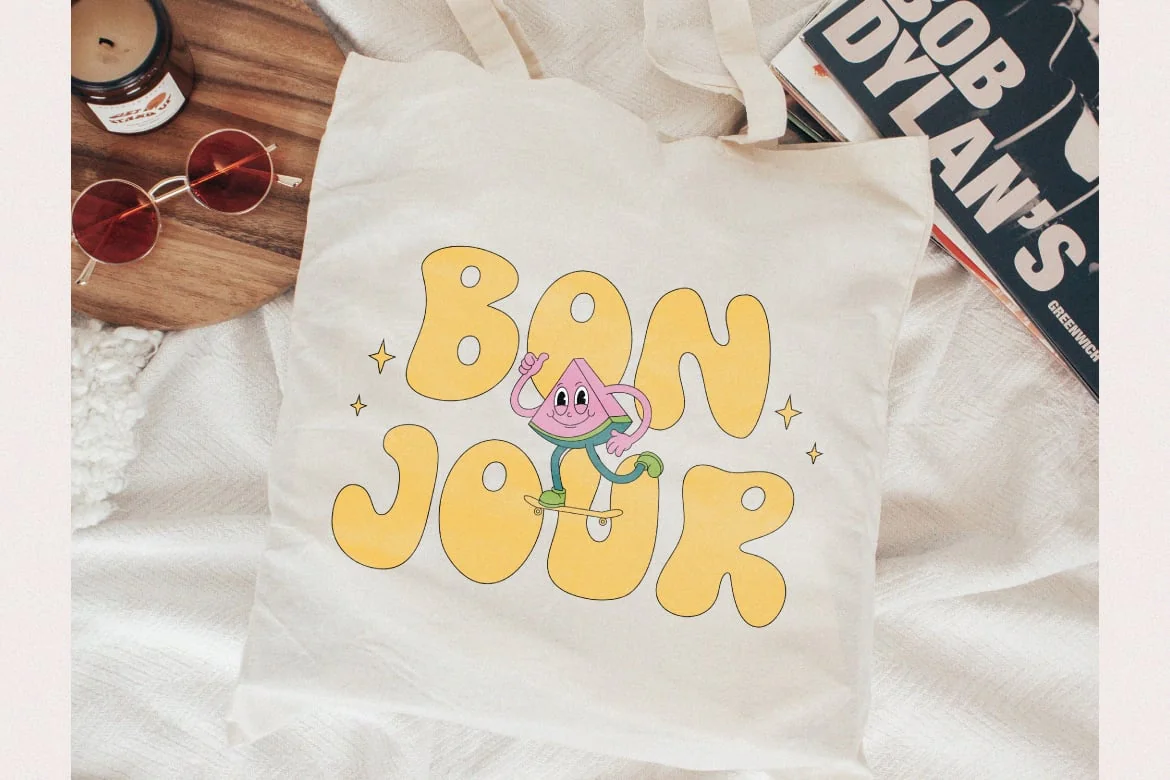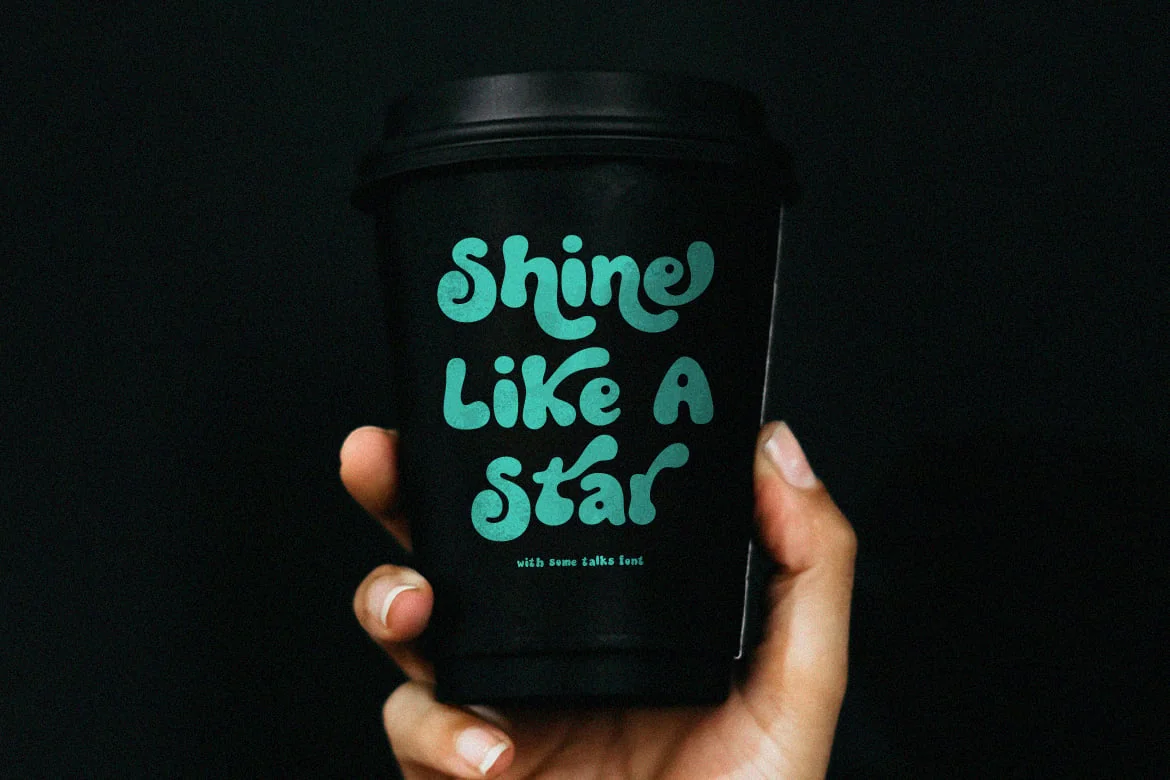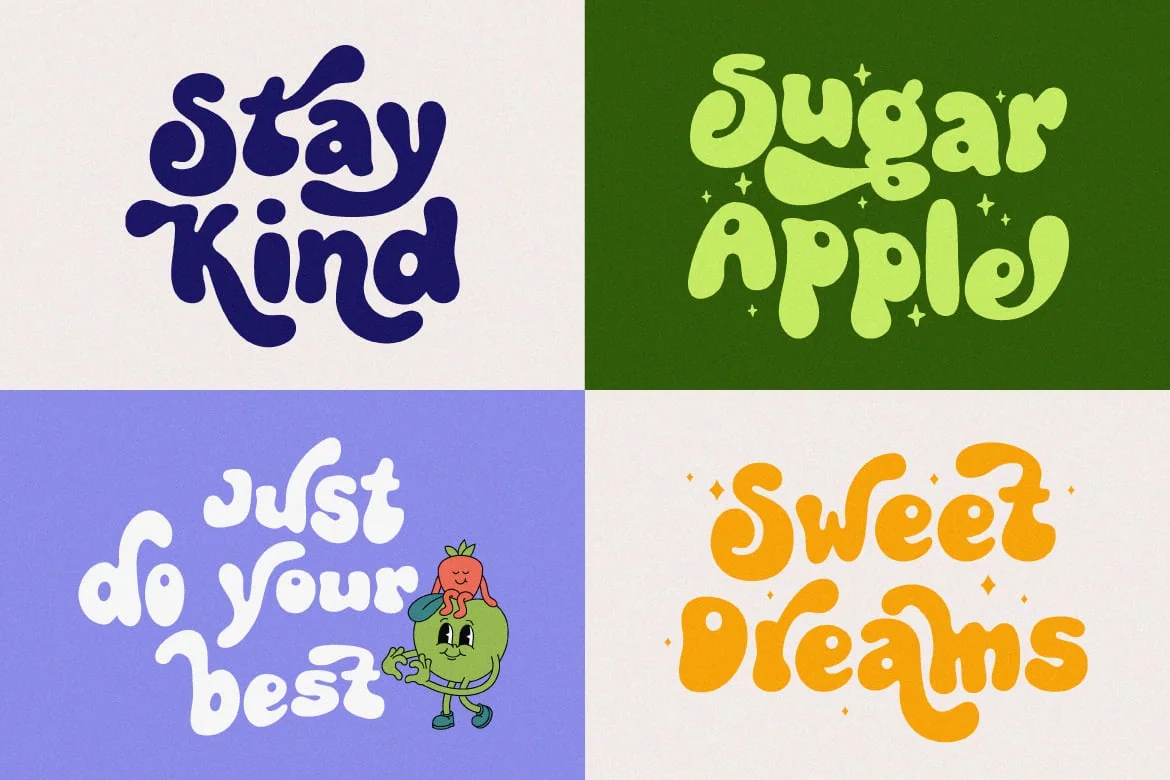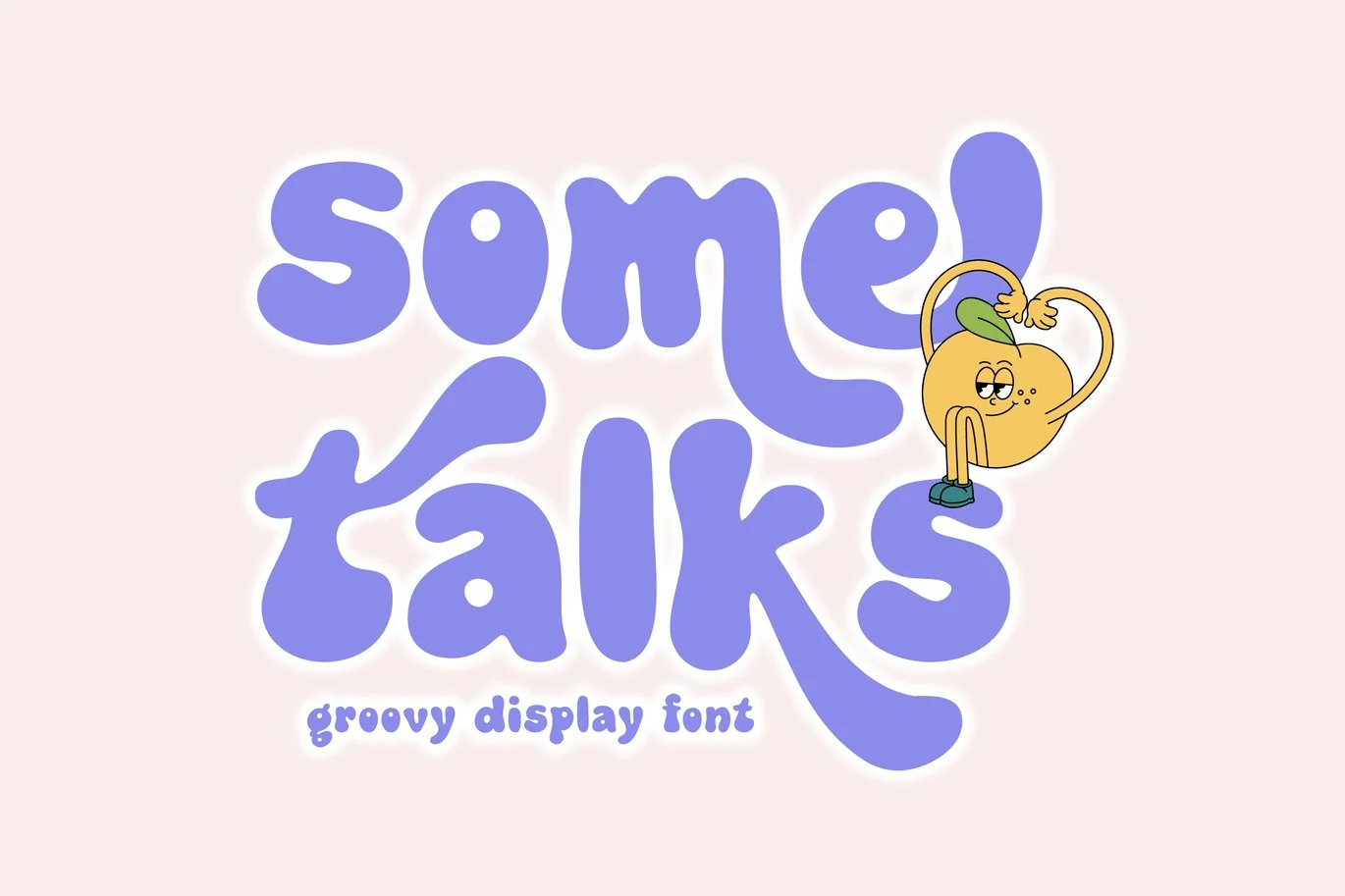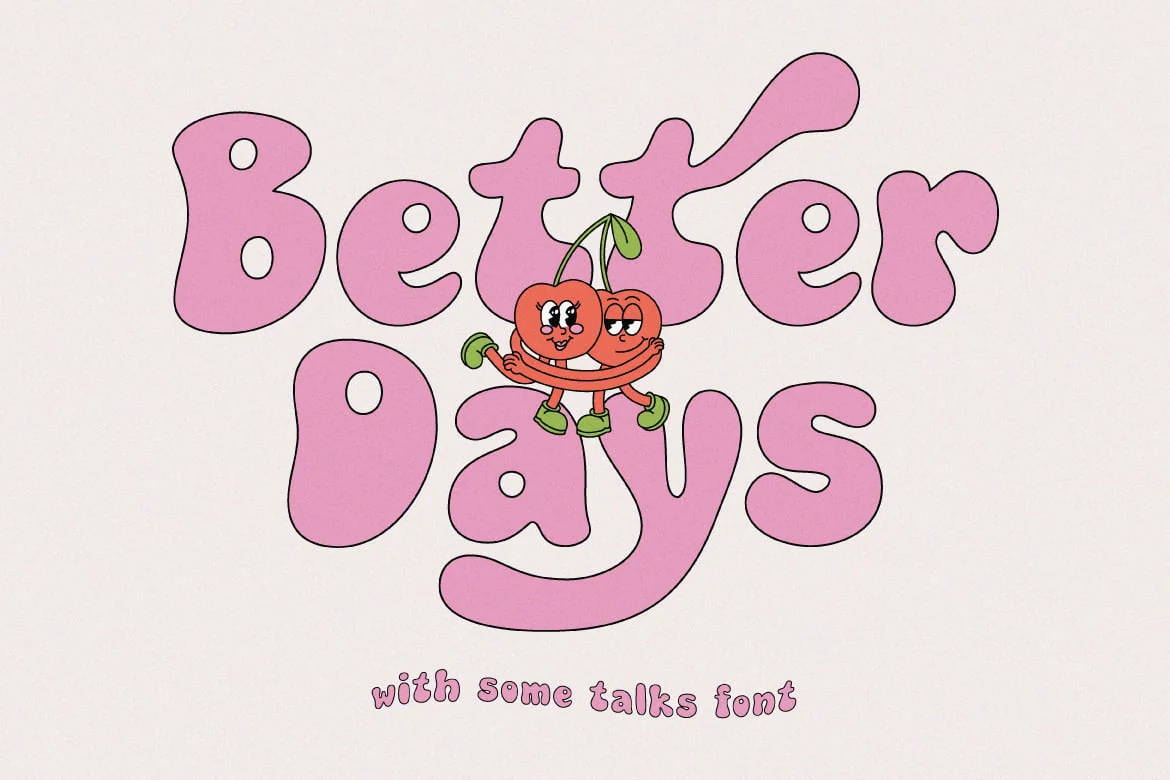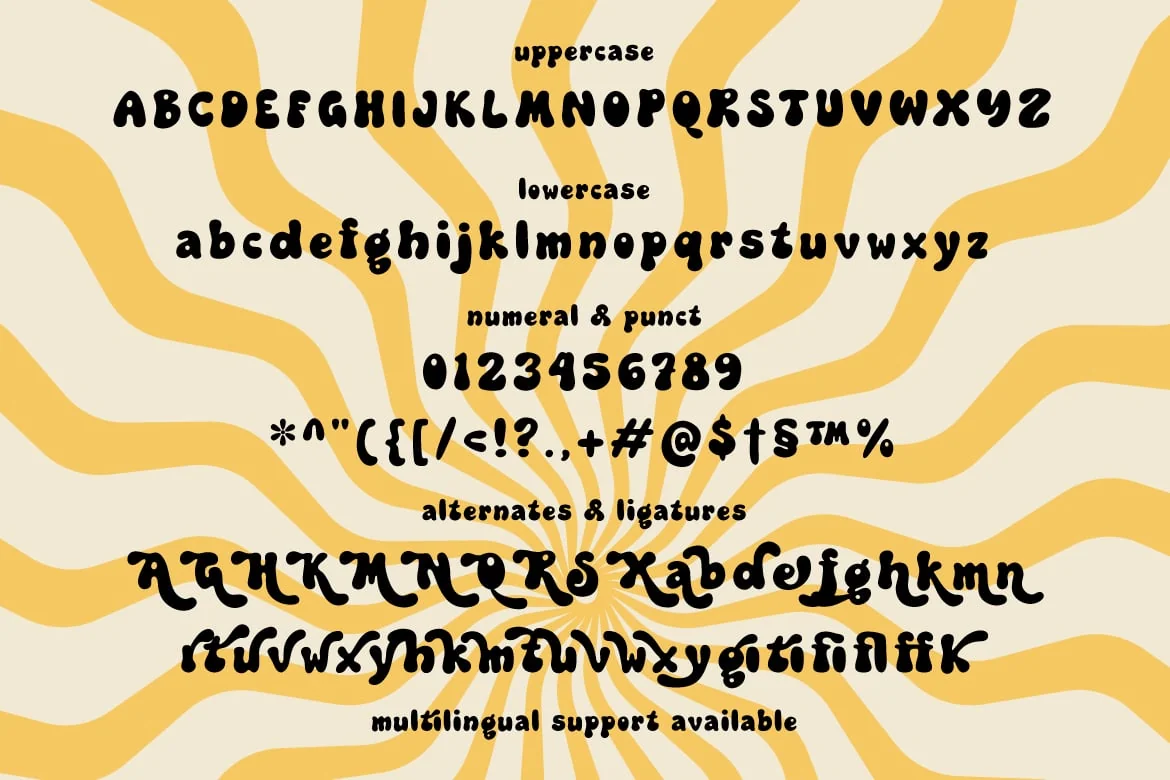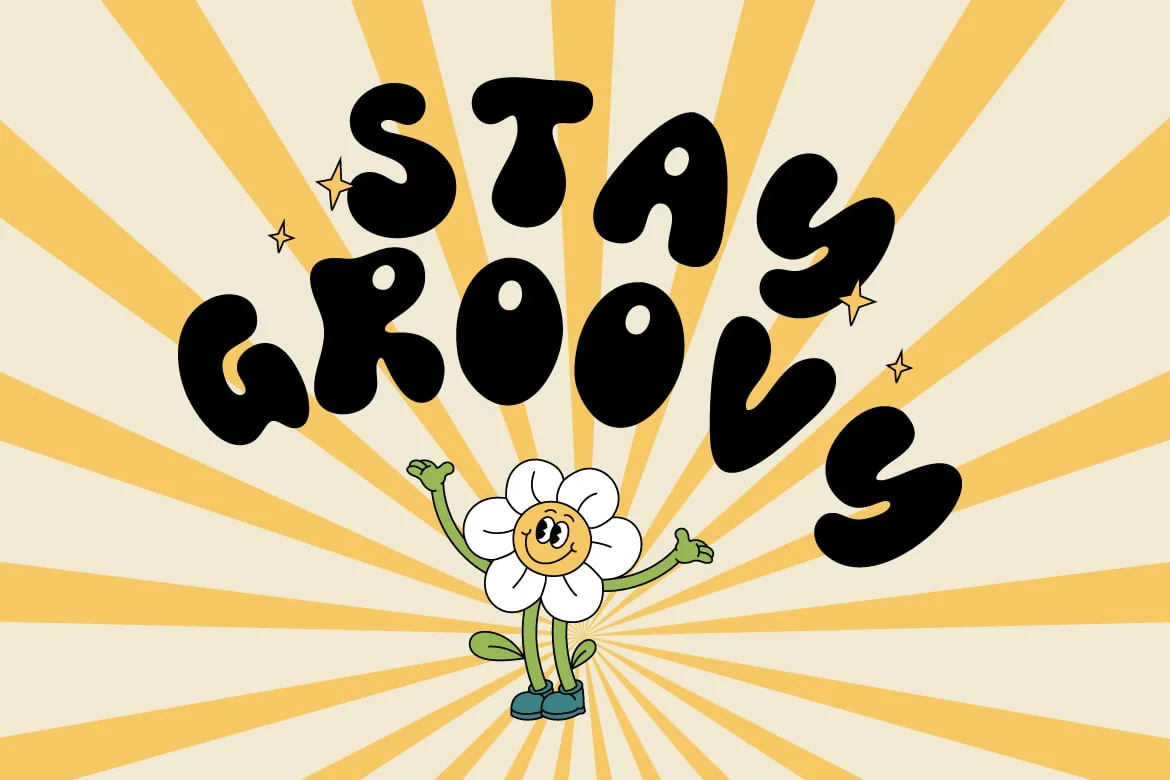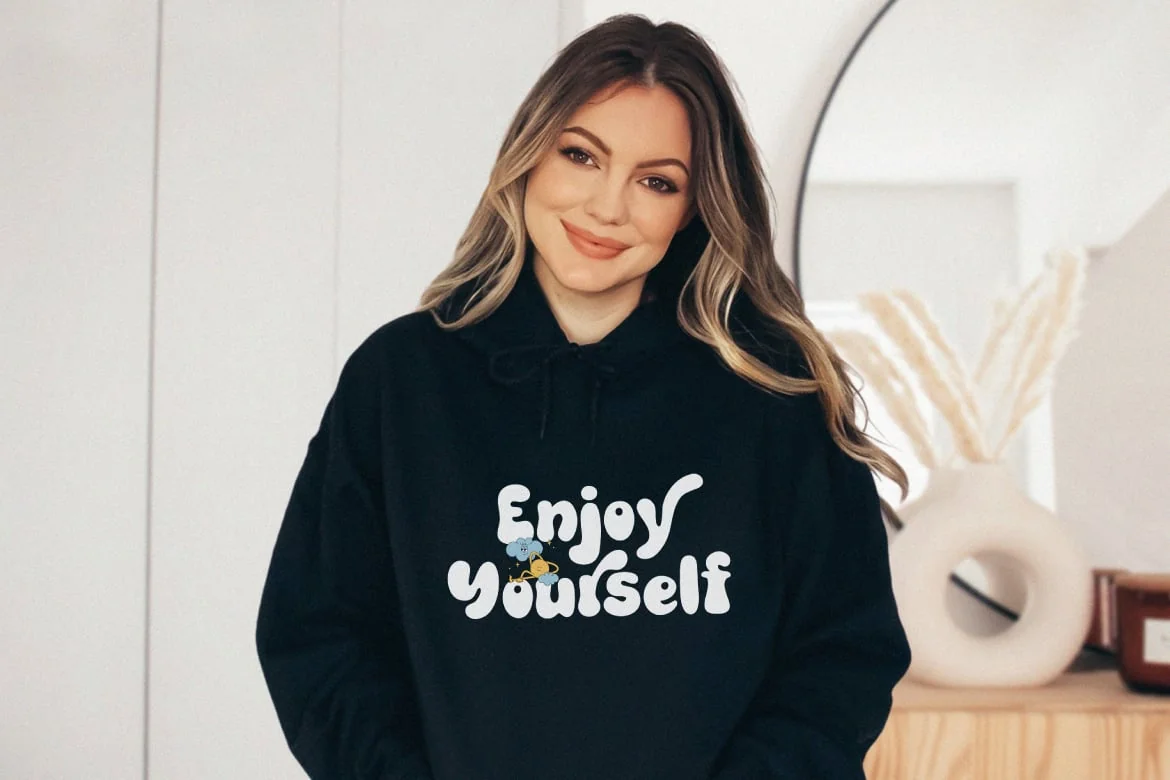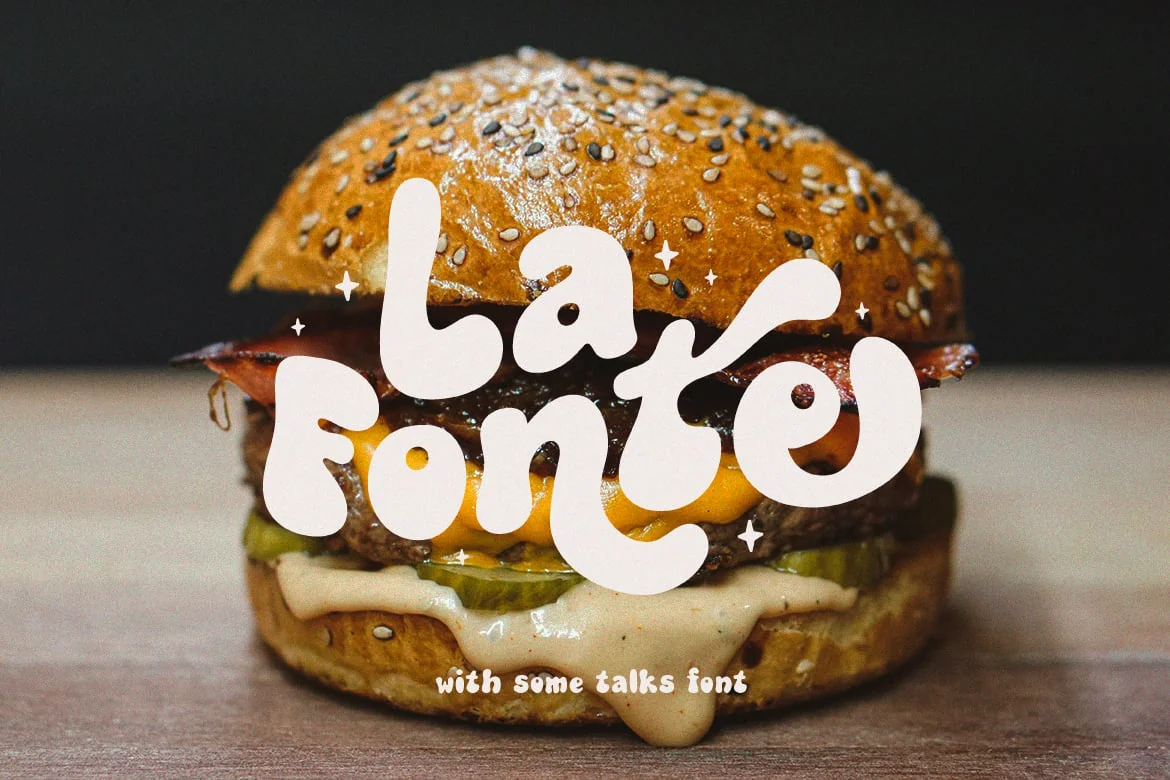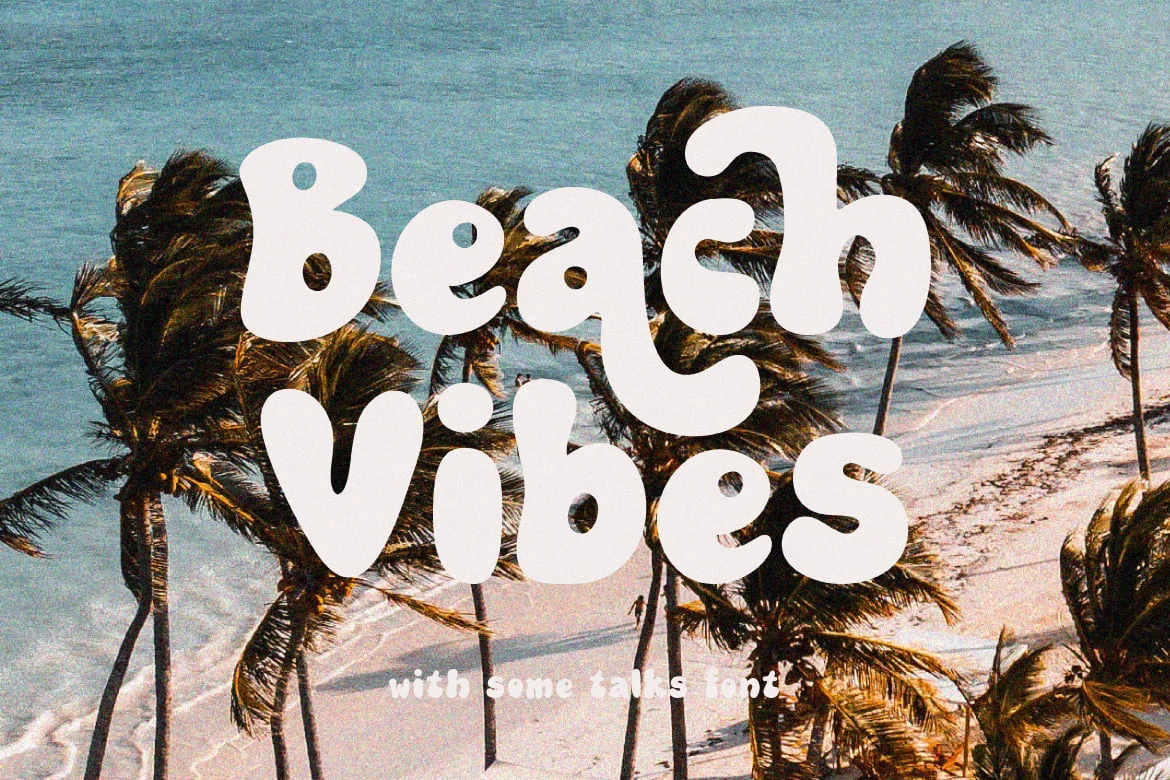
Some Talks – Groovy Display Font
Some Talks – Groovy Display Font.
Introducing a very fun groovy font. Equipped with alternates and ligatures to enrich your exploration. Suitable for branding design, logo, merchandise etc.
- Features: Uppercase, Lowercase, Numeral, Punctuation, Multilingual & Ligatures.